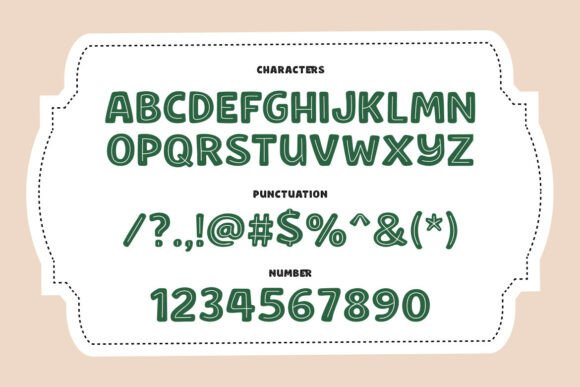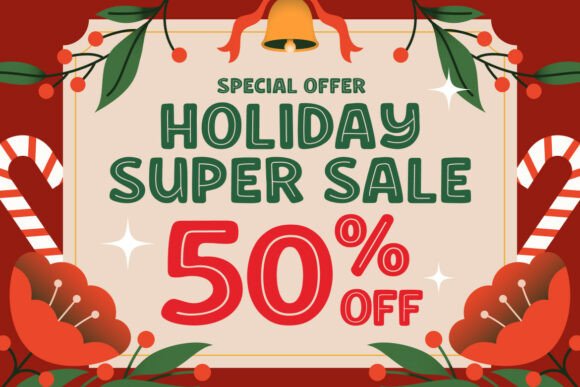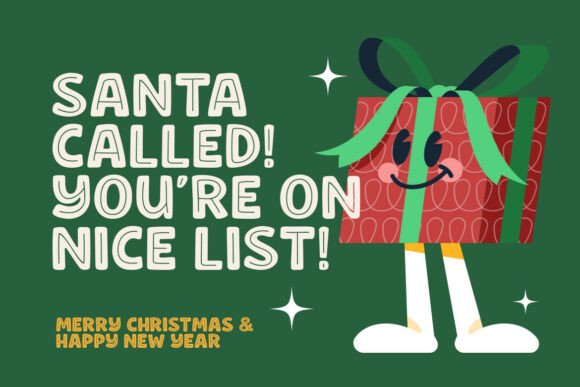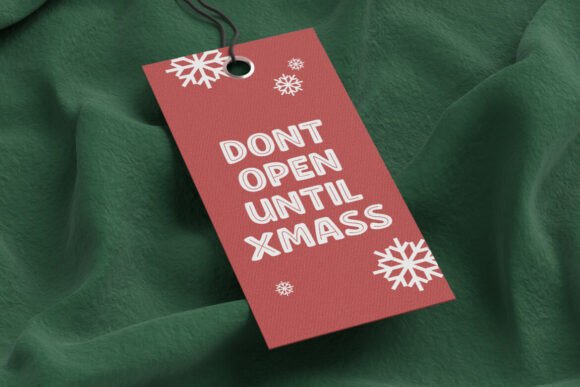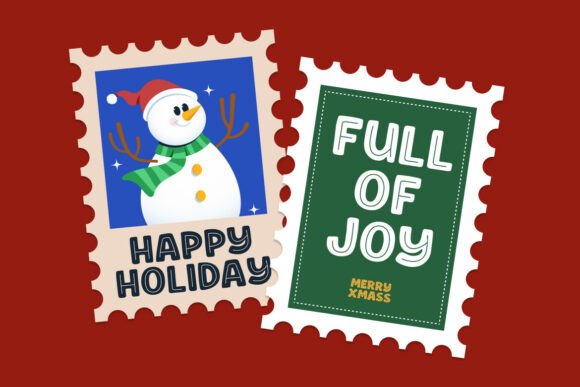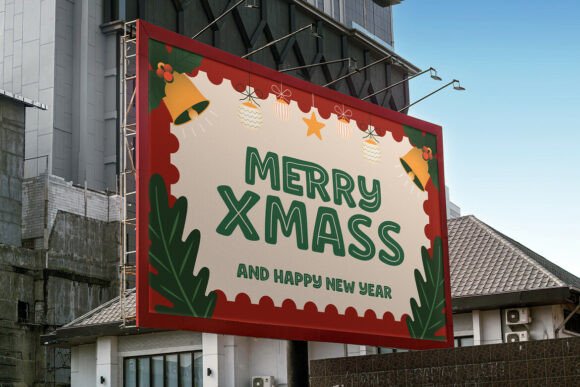
Introduction to Merry Harmony Font
Merry Harmony is a festive bold display font designed to bring warmth, joy, and holiday spirit into your creative projects.
Featuring rounded letterforms, soft inner-line detailing, and a cheerful handcrafted feel, this typeface captures the magic of Christmas with a friendly and playful personality The font includes uppercase characters, numerals, punctuation, and decorative styling that pairs beautifully with seasonal illustrations and holiday layouts.
Key Features of Merry Harmony Font
Why Choose Merry Harmony Font?